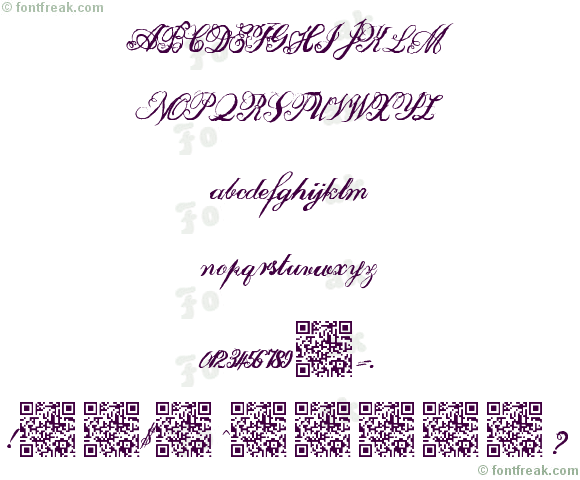
FauxAntique
About FauxAntique
FauxAntique by Xerographer Fonts is a captivating display font that effortlessly merges elegance with a vintage aesthetic. As a decorative typeface, it features intricate, swirling letterforms that evoke a sense of nostalgia, making it perfect for projects that require a touch of sophistication. The strokes are characterized by varying weights, creating a beautiful contrast that adds depth and visual interest. The spacing between the characters is thoughtfully designed to ensure readability while still allowing for the font's ornate qualities to shine through.
This font is particularly well-suited for a variety of creative applications. It shines in wedding invitations, where its romantic flair can convey the joy of the occasion. Additionally, FauxAntique is ideal for movie posters, especially in genres that invoke historical or fantastical themes, as it captures a timeless essence. Restaurant menus can also benefit from this font's charm, providing a unique touch that enhances the overall dining experience. Content creators looking to elevate their branding will find that FauxAntique adds a distinctive voice to their graphics, making it a versatile choice for various projects.
The target audience for FauxAntique includes graphic designers seeking a font that stands out in a crowded marketplace, small business owners wanting to create memorable branding, and content creators who wish to infuse their work with a sense of artistry. This font's free status as freeware makes it accessible for anyone looking to enhance their design toolkit.
In conclusion, FauxAntique is a remarkable font that stands out for its intricate design and versatility. Its unique character makes it a valuable addition to any designer's font collection, and the FauxAntique font free download is an opportunity not to be missed. Embrace the charm of this typeface and elevate your next project with its timeless elegance.